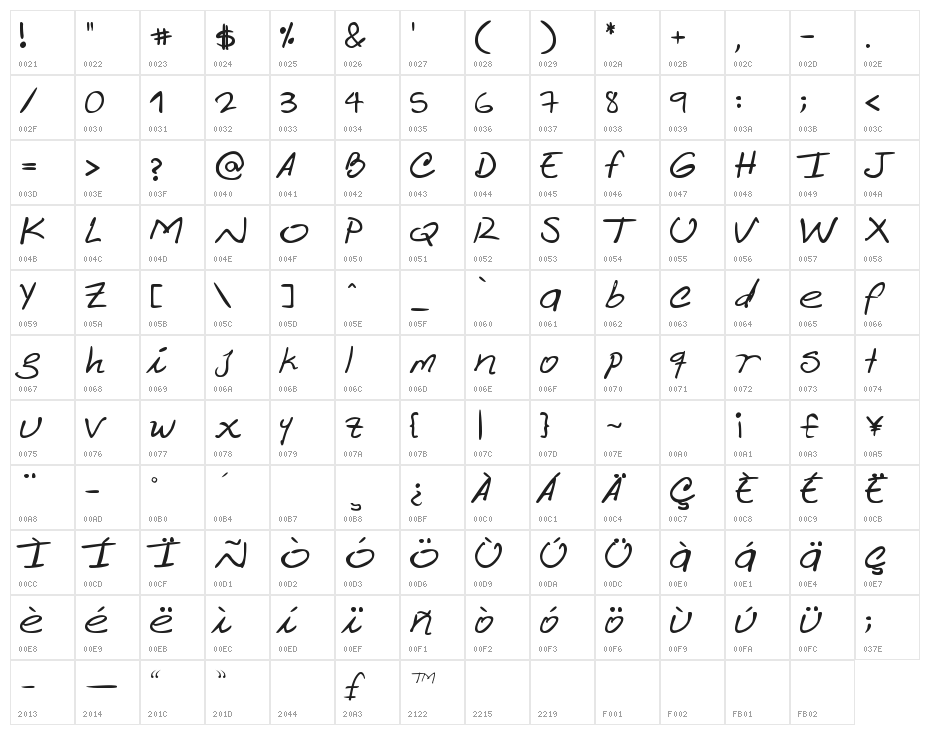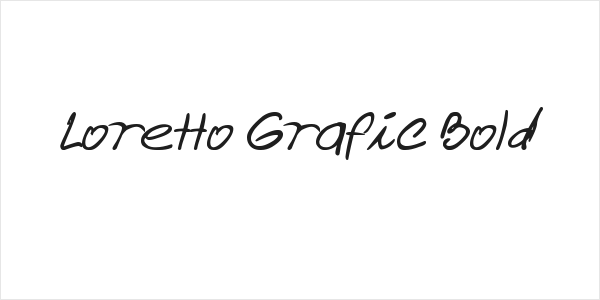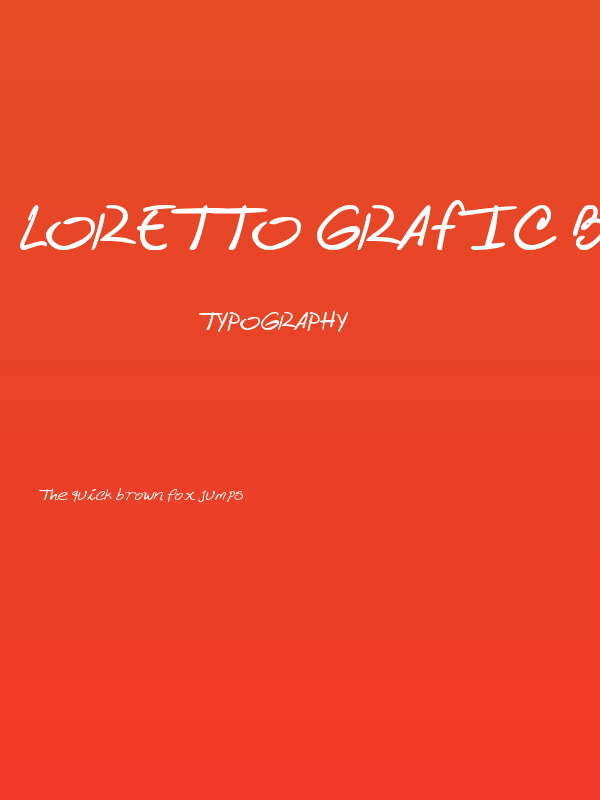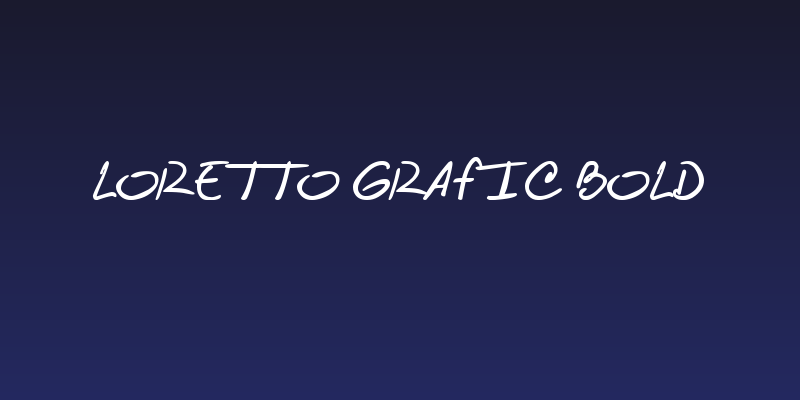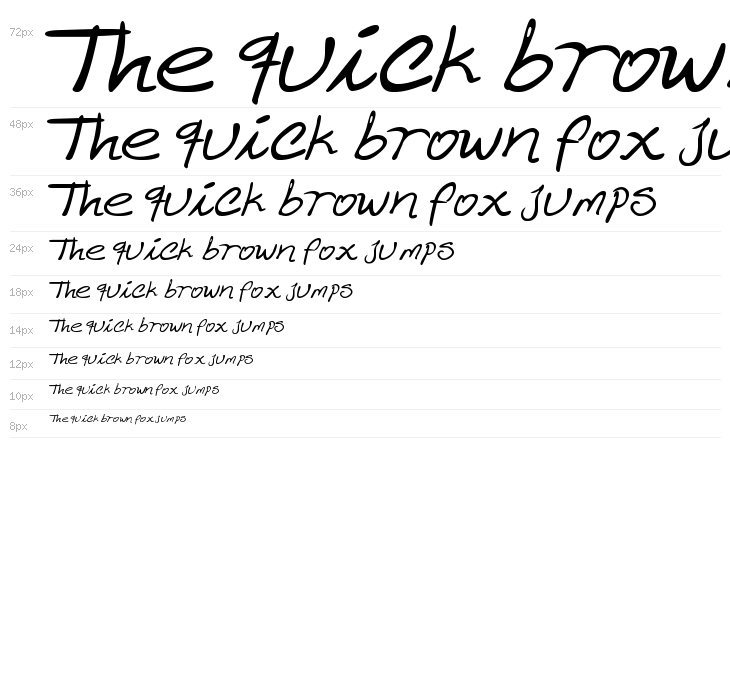
Loretto Grafic Bold Font
Loretto Grafic Bold Description
This font features a dynamic and energetic handwritten style, characterized by its bold and fluid strokes. The letters are slightly slanted, giving a sense of motion and liveliness. The uppercase and lowercase characters maintain a consistent flow, with rounded edges and smooth curves. The numbers and special characters are crafted with the same attention to detail, ensuring a cohesive look throughout. This font's playful yet sophisticated appearance makes it suitable for a variety of creative projects.
| Proposed Projects | Ideal for branding, invitations, greeting cards, and creative posters. |